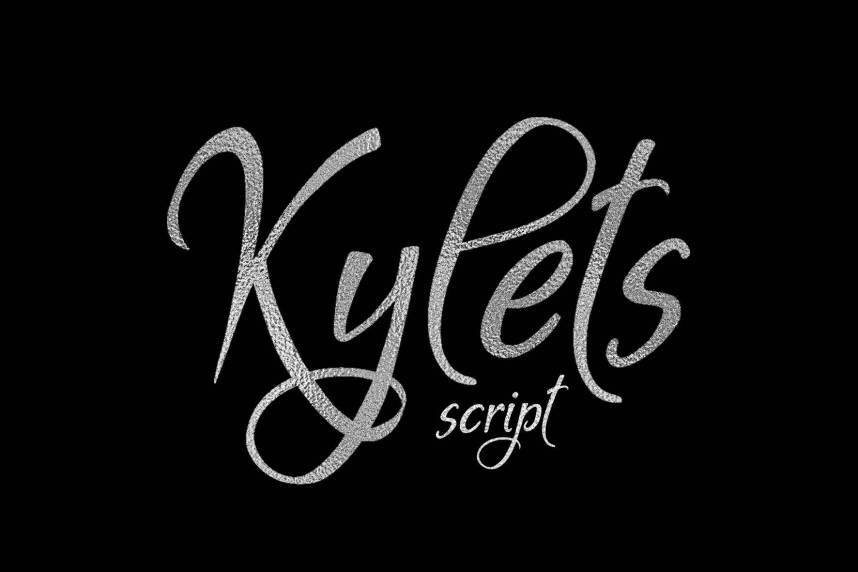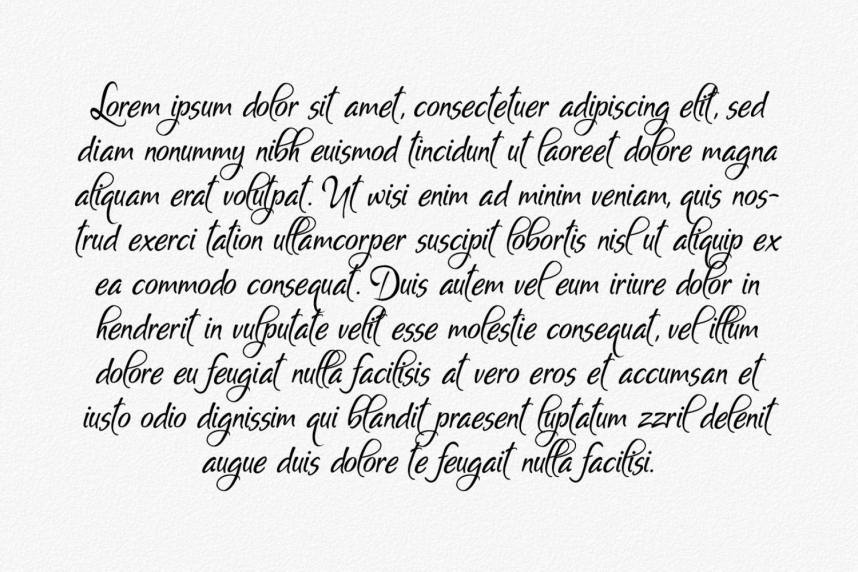
Kylets Script Font
What could you create if your handwriting was a font? Introducing Kylets Script Font! Kylets font is a modern handwritten script font handlettered by Eva Barabasne Olasz. The flowing lines and optional initial and terminal swashes make this font perfect for invitations, logos and other special projects.